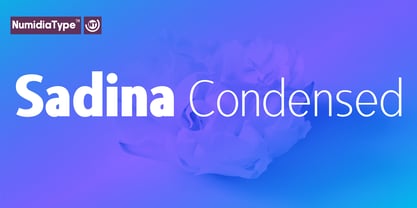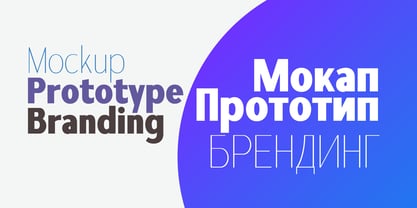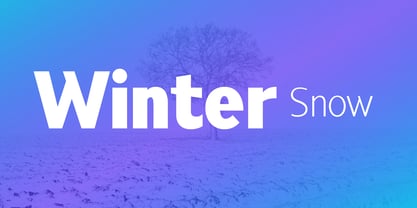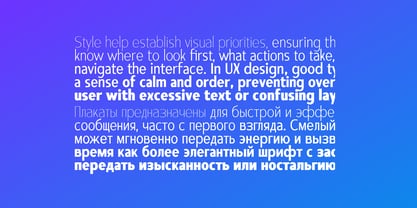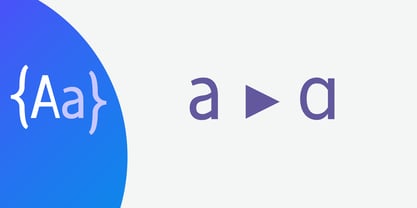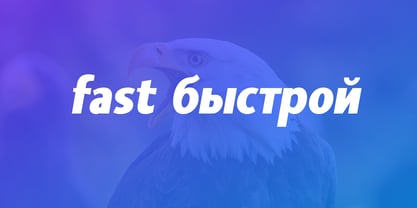
Sadina Condensed
The Sadina Condensed Font Family was designed by Yassine Abdi and published by NumidiaType. Sadina Condensed contains 14 styles and family package options. More about this family
Sadina™ Condensed is a modern sans serif typeface that blends sleek minimalism with sharp precision, designed to make a powerful impression in tight spaces without compromising readability. Its condensed proportions, clean geometric letterforms, and subtle curves balanced by crisp angular cuts create a contemporary and refined aesthetic. With tight letter spacing and a narrow width, Sadina Condensed excels in bold headlines, impactful logos, and space efficient layouts, maintaining high legibility even at smaller sizes. Available in a versatile range of weights from Thin to Black, including Italic styles, it adapts seamlessly to branding, web design, posters, and advertising. Strong yet approachable, Sadina Condensed brings a sophisticated, clean, and highly adaptable tone to both digital and print design.